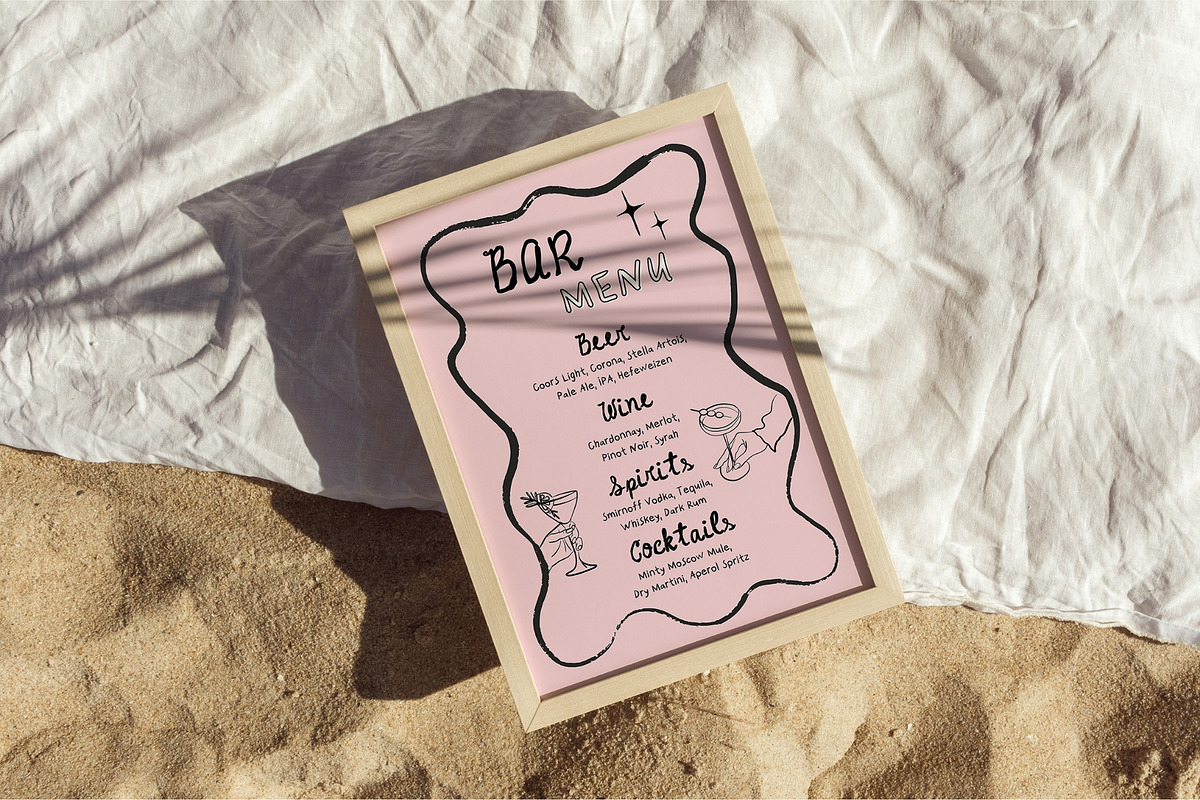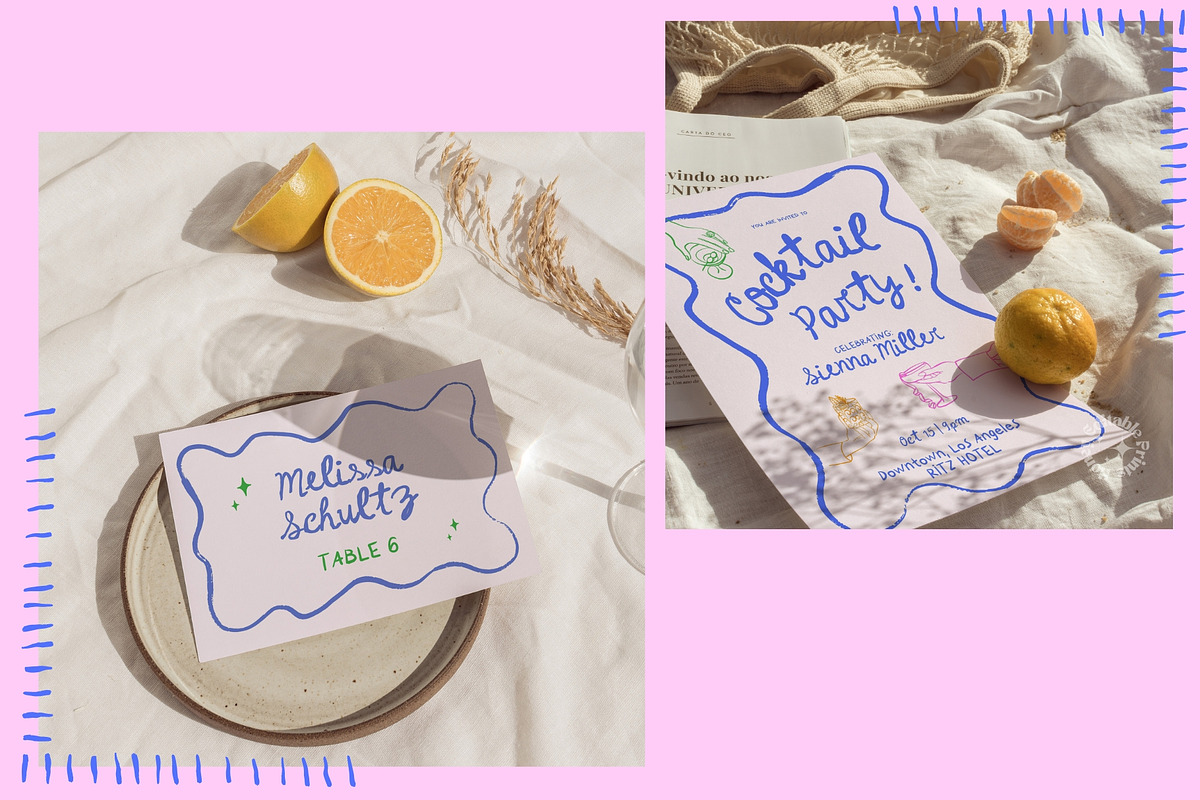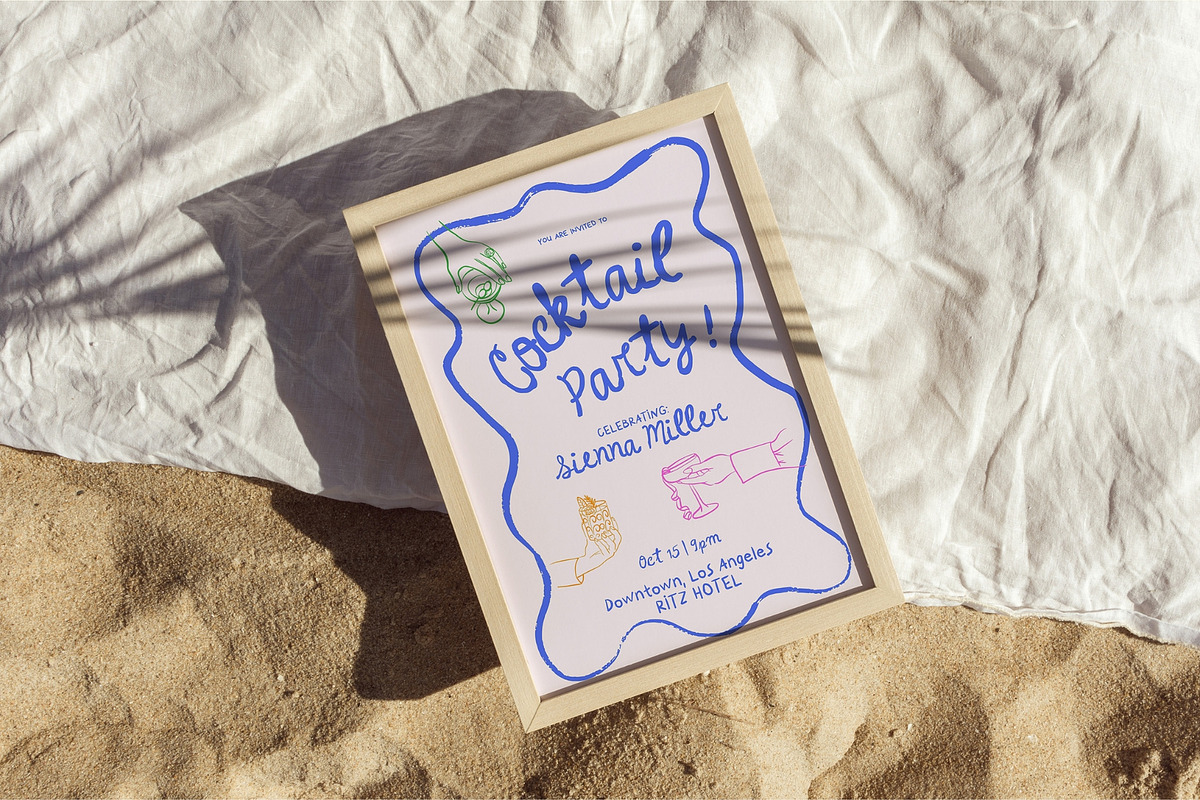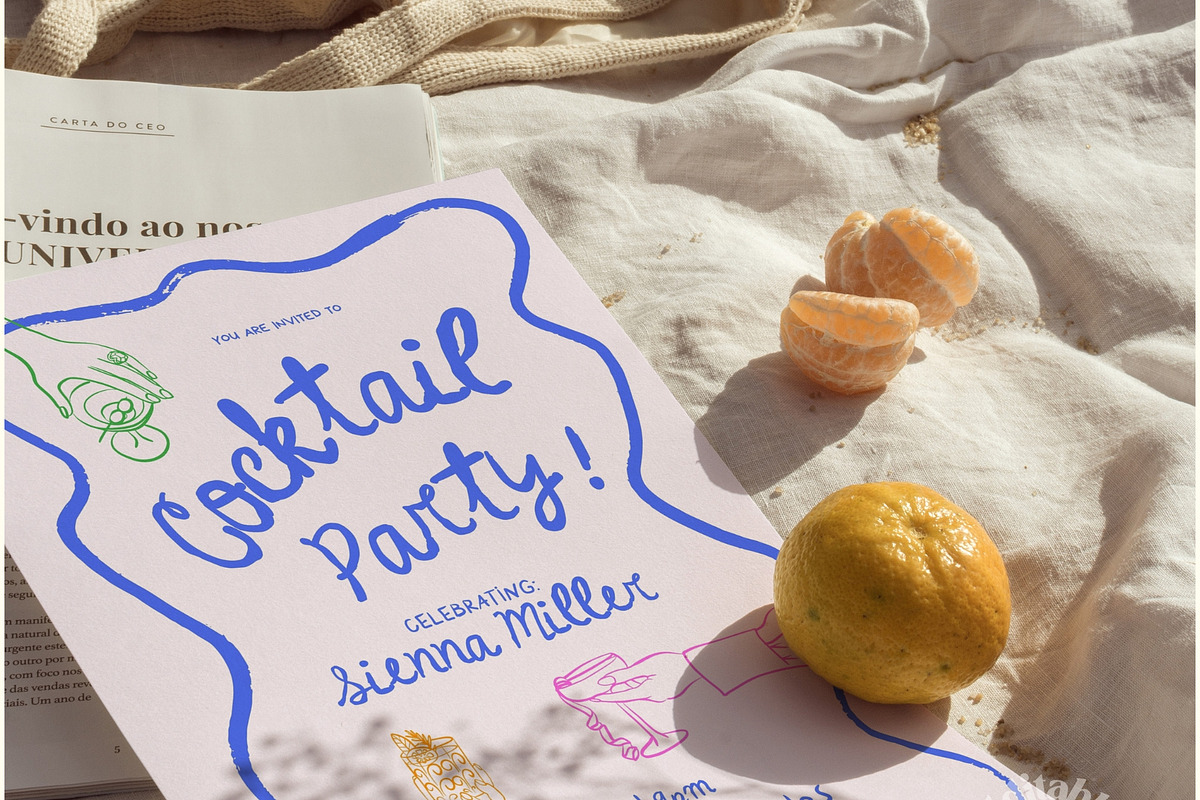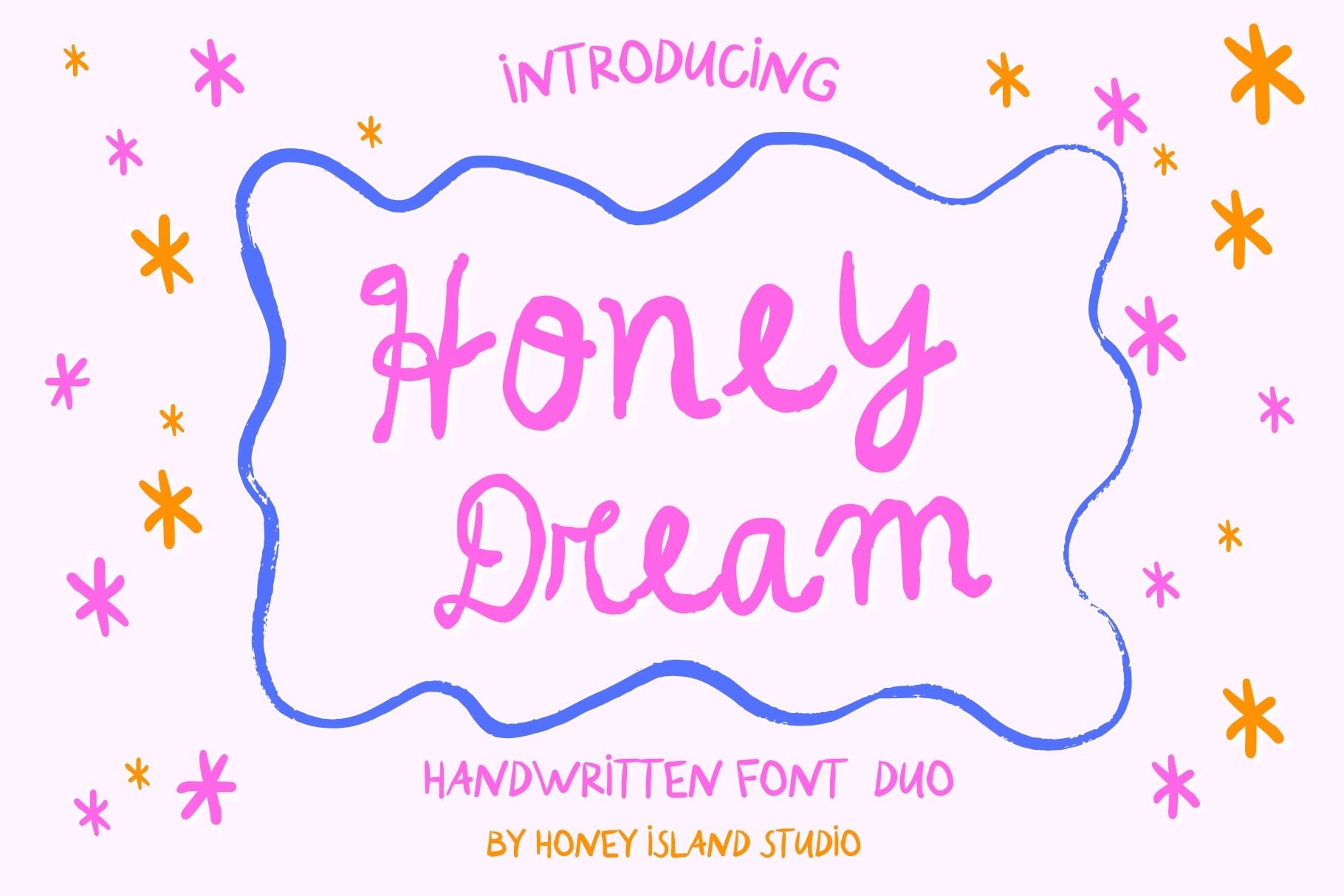
Honey Dream Whimsical Font Duo
Introducing Honey Dream Handwritten Whimsical Font Duo
Unleash your creativity with the Honey Dream Handwritten Whimsical Font Duo! This enchanting set includes two unique fonts designed to add a playful touch to your projects.
Honey Dream Script: A beautifully flowing script font that captures the charm of handwritten notes, perfect for invitations, greeting cards, and personal branding.
Honey Dream Sans: A complementary sans-serif font that balances the whimsical script with its clean lines, ideal for headlines, body text, and modern designs.
Elevate your designs with the delightful character of Honey Dream, and let your creativity soar!